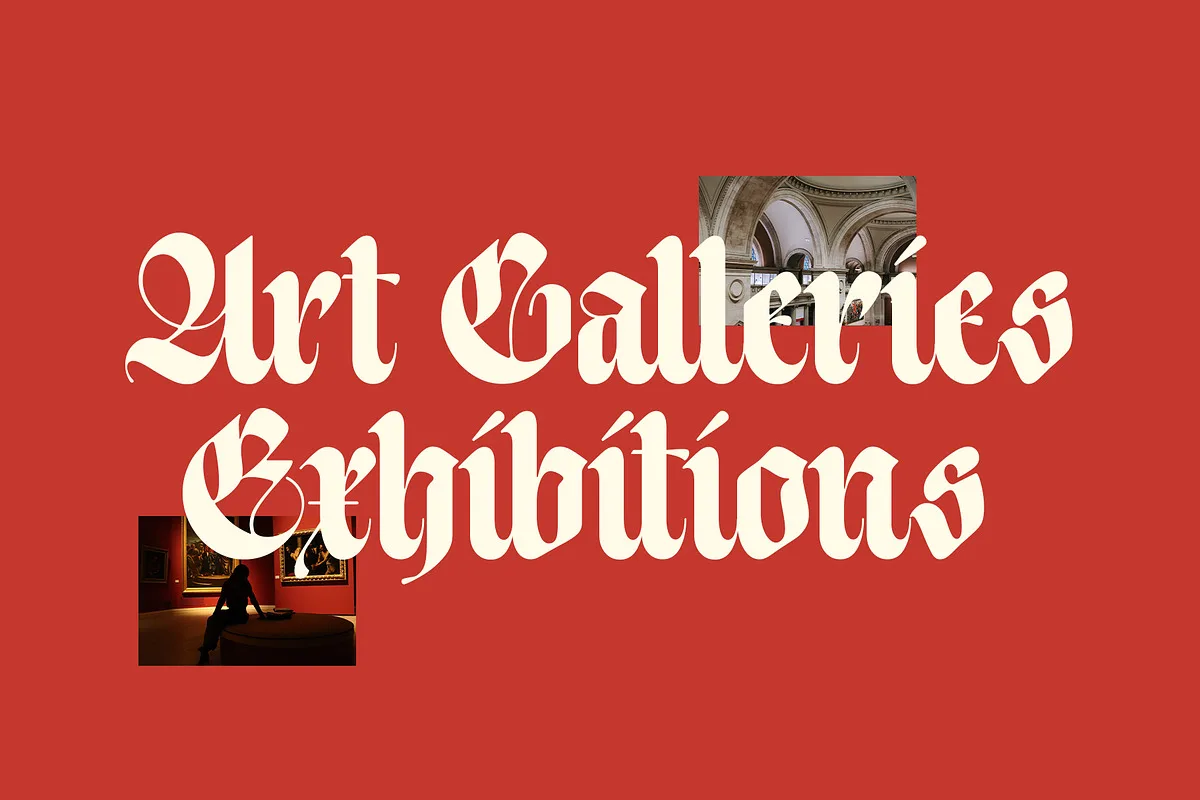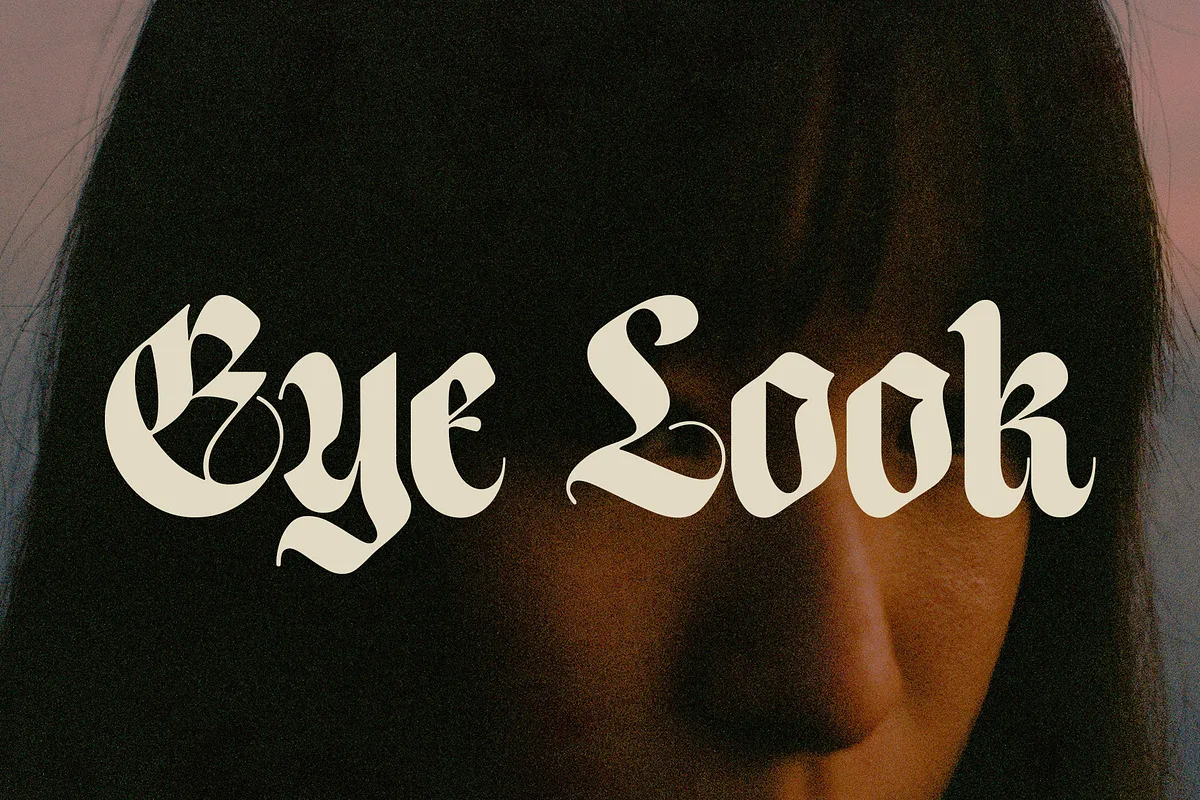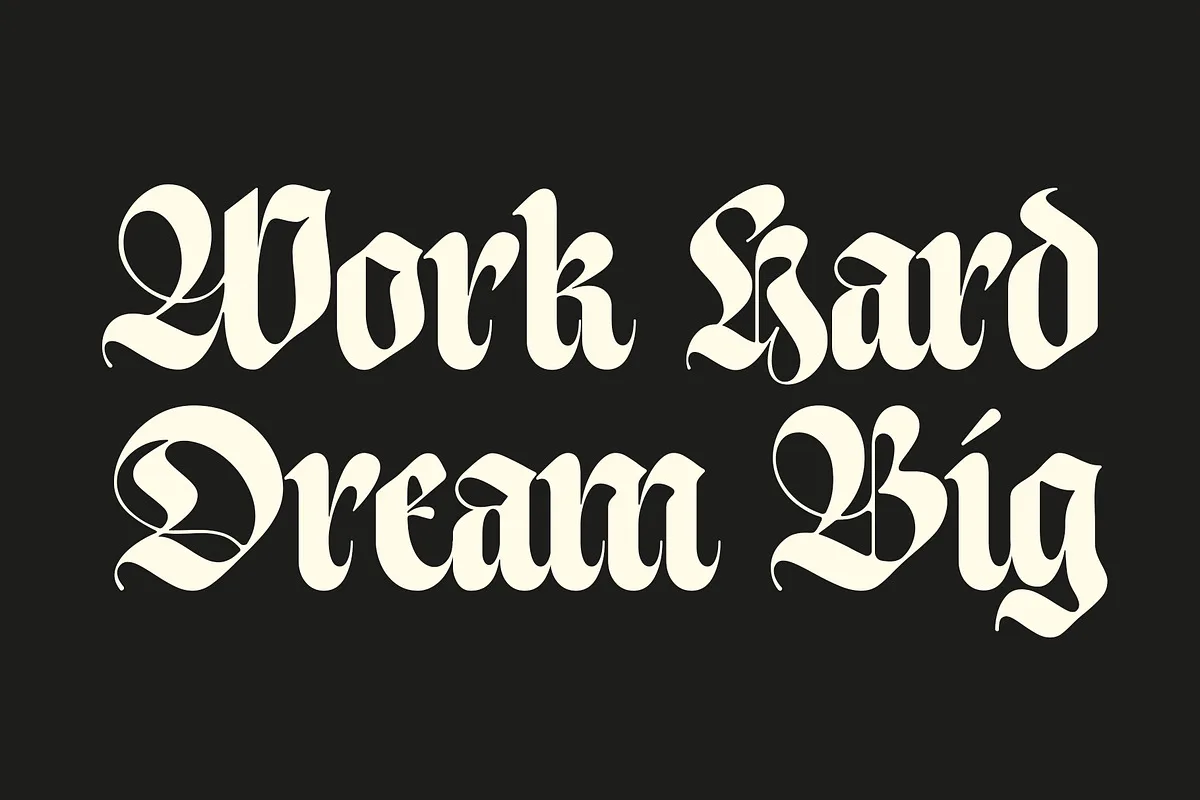
ED Bathurst is a modern classic blackletter style supported with multilingual character and ligature features. This font is perfect for your design needs such as poster design, logo design, branding, apparel, book, magazine, etc.